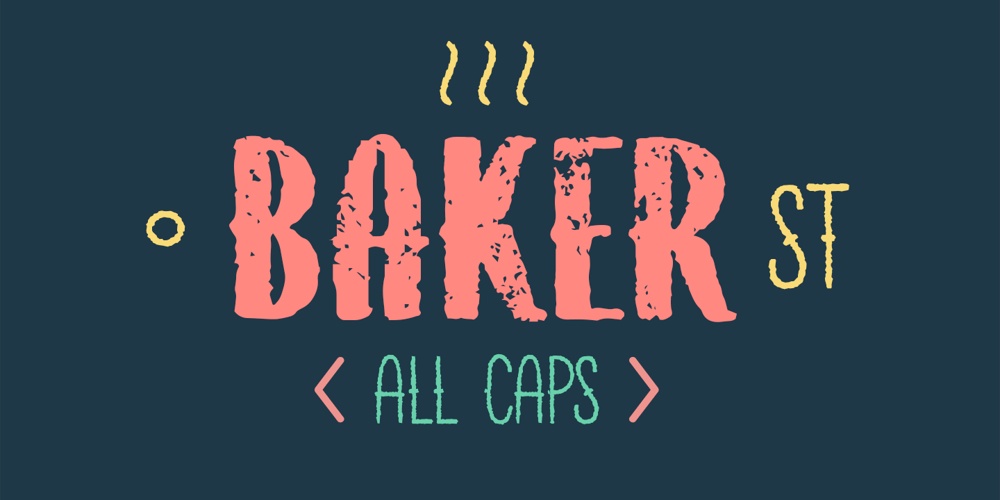
Baker ST Font Family was designed by Alex Etewut and published by Etewut. Baker ST contains 5 styles and family package options. Baker ST is all caps type family. The family includes 5 styles, from regular to decorative, and includes multi-language support.The decorative uppercase is a bit different to the lowercase.